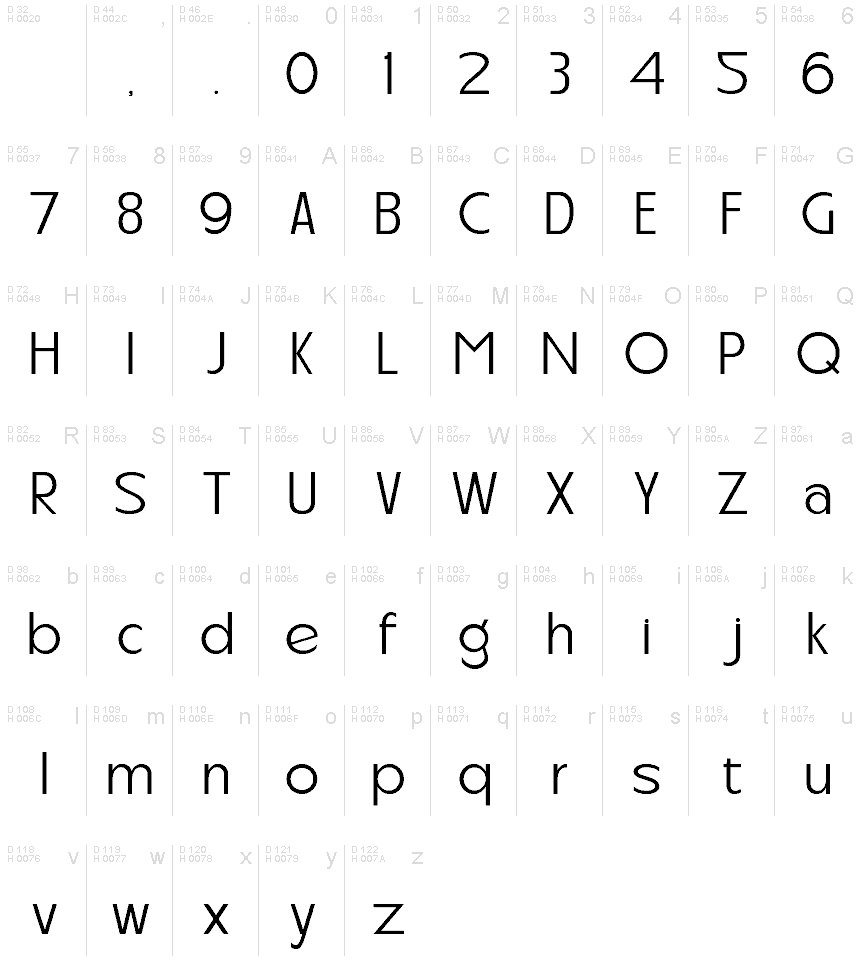
Carltine Light
Carltine Light font by Muksal Creative is a modern typography gem—a light sans serif that embraces a minimalistic and clean design. With subtle geometric influences, it combines modern aesthetics with a contemporary feel resulting in what can be described as sleek, stylish, and professional.
This free sans serif font is perfect for use in branding, logos, advertising titles, web headers, app interfaces, business cards, magazines covers and headings; this typeface can also be used for body texts to optimize readability.